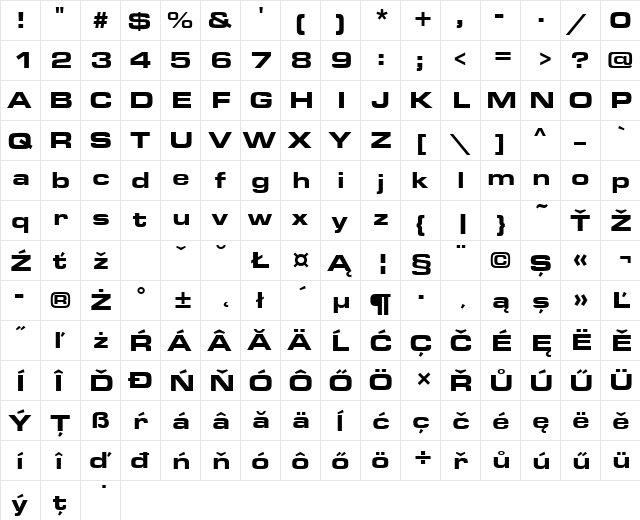
EurostileTEEBlaExt Regular
Design Context for EurostileTEEBlaExt Typeface
EurostileTEEBlaExt is a composed and adaptable typeface that performs quietly and consistently across a wide range of design contexts.